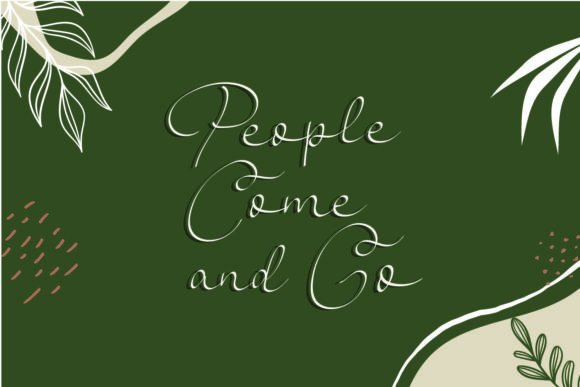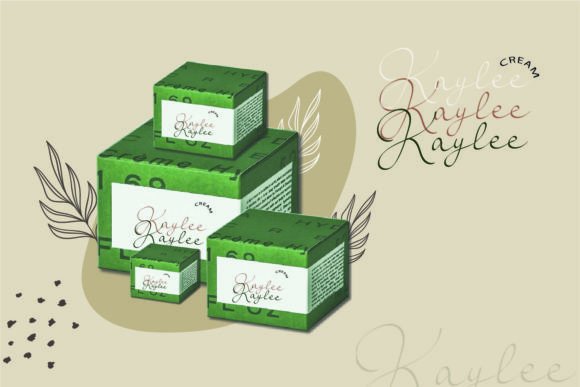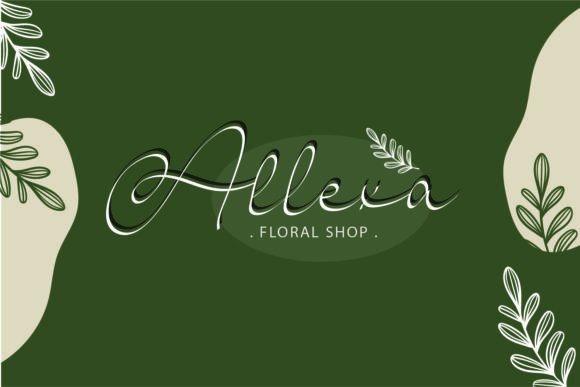
Introduction to Manchella Font
Have you ever been stuck on a creative project, staring at a blank canvas, searching for that perfect font to bring your design to life? That’s exactly where I was when I stumbled upon the Manchella Font – a modern and cool handwritten script font that instantly stole my heart. Its incredibly distinct and timeless style had me hooked from the very first glance.
As designers, we’re always on the lookout for high-quality design resources that can elevate our work and make it stand out. The Manchella Font is an absolute gem, offering a unique and stylish touch to any design project. With its versatility and effortless charm, it’s no wonder why this font has become a go-to choice for many creatives.
Key Features of Manchella Font
- Unique and Creative Design: Manchella Font is a high-quality design resource perfect for creative projects that require a touch of elegance and sophistication.
Honest Review: Manchella Font
I recently came across the Manchella Font and was excited to give it a try for my latest creative project. As a designer, I’m always on the lookout for high-quality, versatile fonts that can elevate my designs.
- ✨ The font has a unique and modern aesthetic that’s perfect for contemporary designs.
However, I did encounter a few limitations while using the Manchella Font:
- ⚠️ The font doesn’t support bold or italic styles, which can be a limitation for certain design projects.
- ⚠️ The font may not be suitable for designs that require a lot of text, as it can become difficult to read at smaller font sizes.
Using Manchella Font in Creative Projects
The Manchella Font is ideal for a variety of creative projects, including:
- Branding and logo design
- Infographics and data visualization
- Brochures and flyers
Alternatives to Manchella Font
Montserrat is a popular sans-serif font ideal for creative projects requiring a modern, urban feel. Its high quality and versatility make it suitable for a wide range of applications, including logos, headlines, and body text. When to use: For projects requiring a clean and minimalist aesthetic.
Montserrat compares to Manchella Font in terms of its modern and sleek design, but it has a more geometric feel and a wider range of font weights.
Open Sans is a highly legible font that works well for designs requiring a clean and transparent background. It’s a great choice for digital projects, including websites, mobile apps, and e-books. When to use: For projects requiring a clear and readable font.
Open Sans compares to Manchella Font in terms of its simplicity and legibility, but it has a more neutral feel and a larger font family.